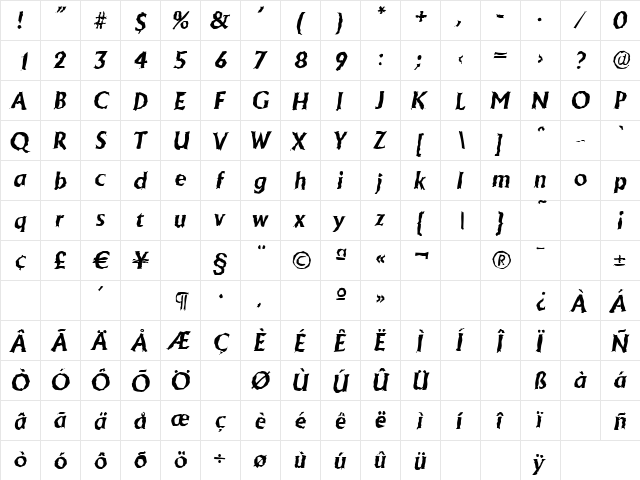
JacobBeckerRandom BoldItalic Font Preview
Design Context for JacobBeckerRandom Typeface
JacobBeckerRandom takes a measured approach to typography — its balanced proportions and neutral character make it a reliable workhorse for both digital and print work. Its italic angle brings a sense of urgency and motion to the letterforms. The heavy weight commands attention and anchors typographic hierarchies.
Pro Tip: Try JacobBeckerRandom for annotation and caption copy alongside an upright companion — the contrast in angle creates a dynamic but ordered typographic system.